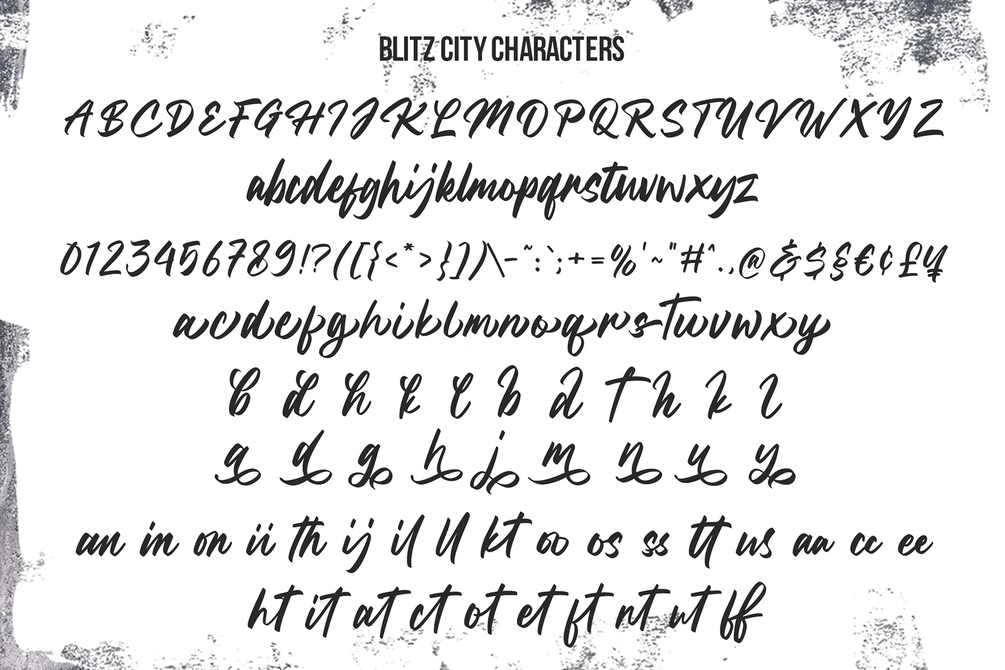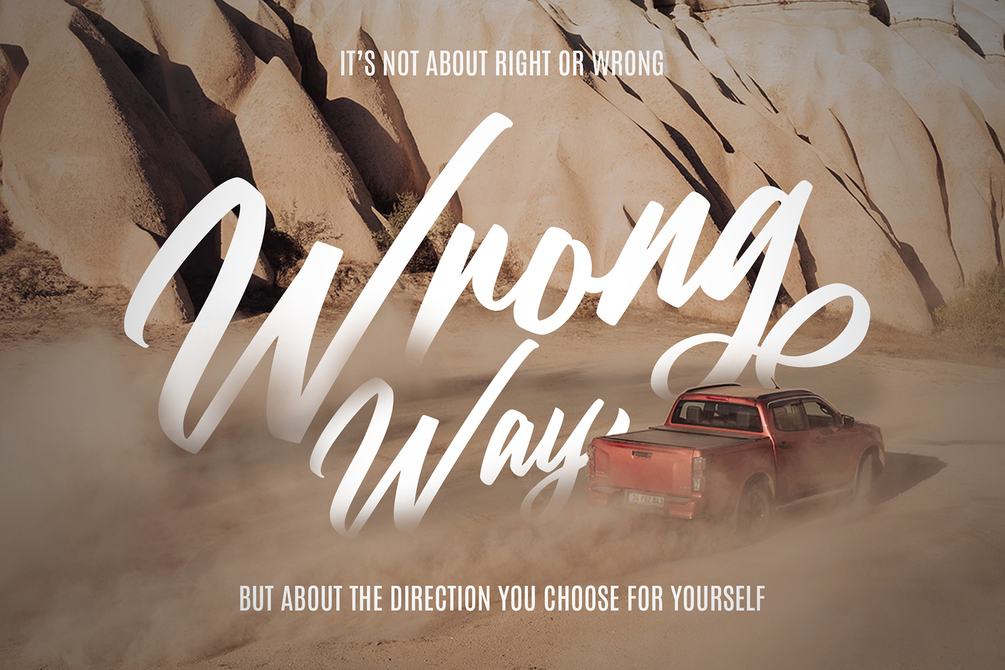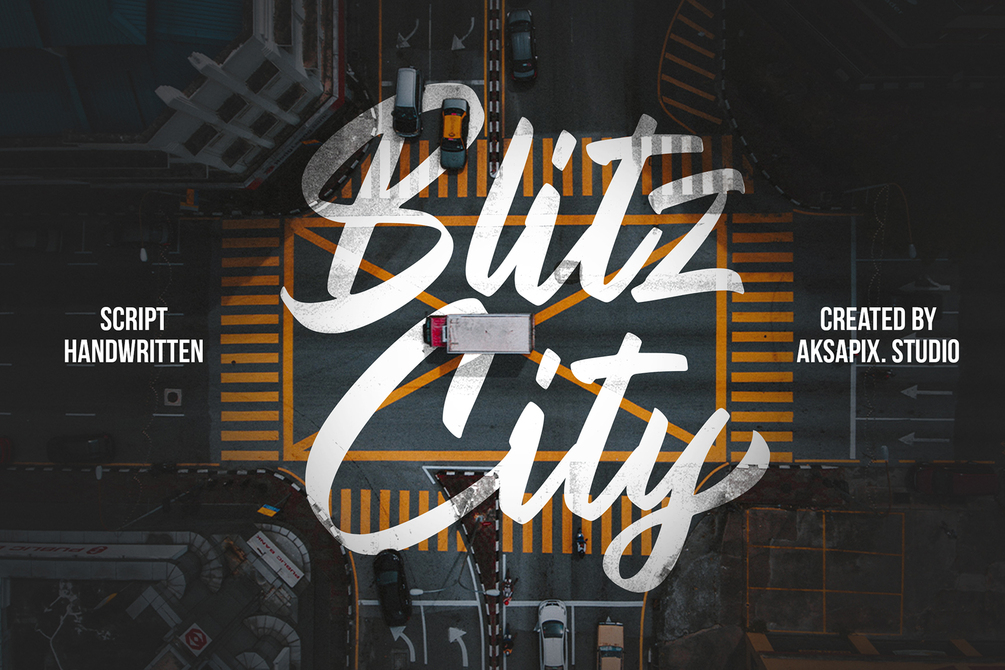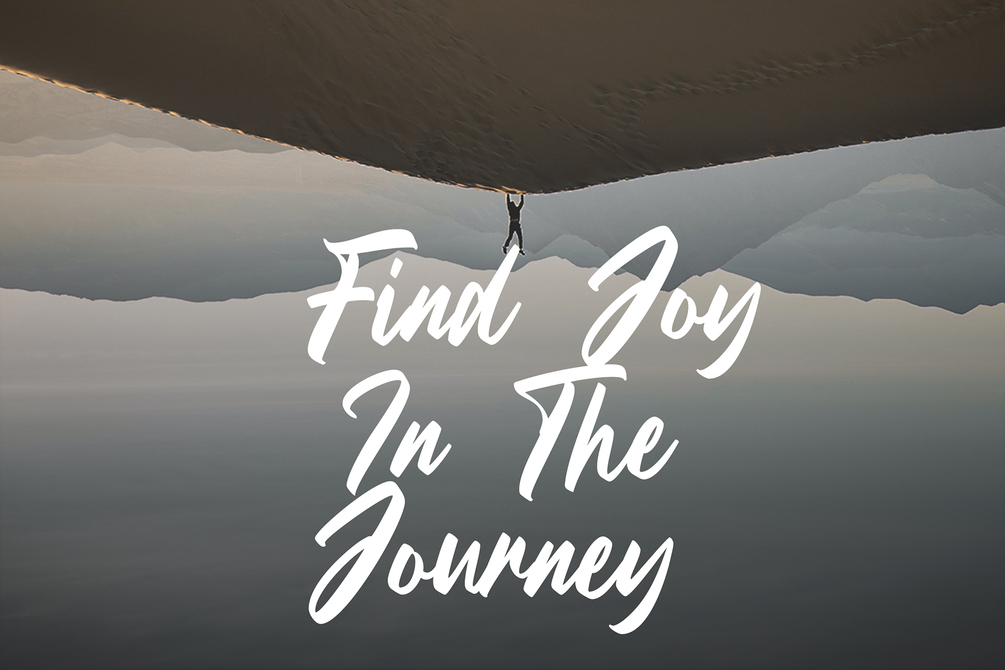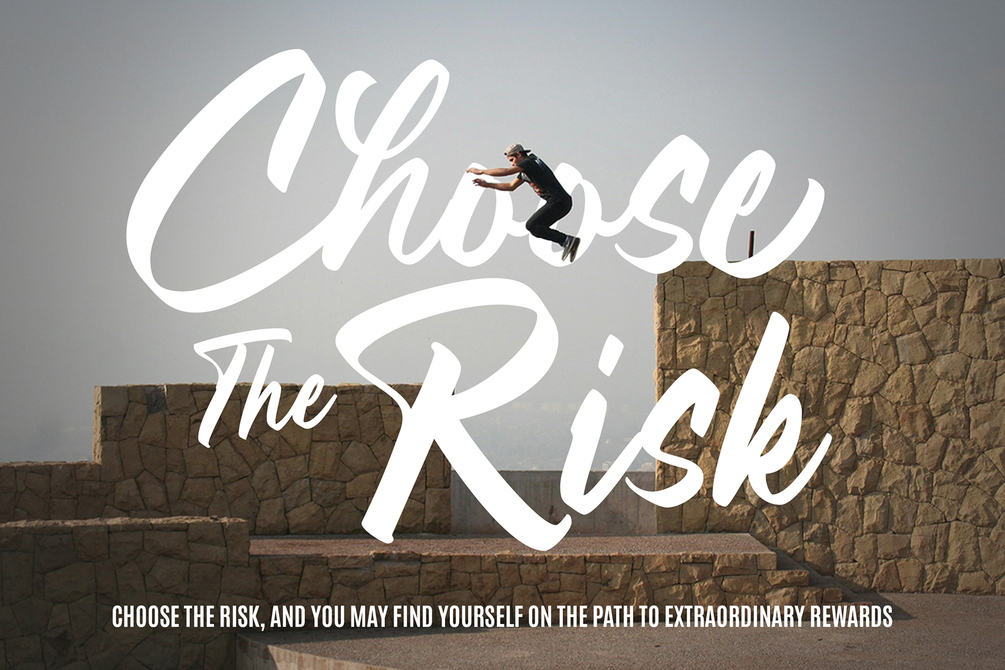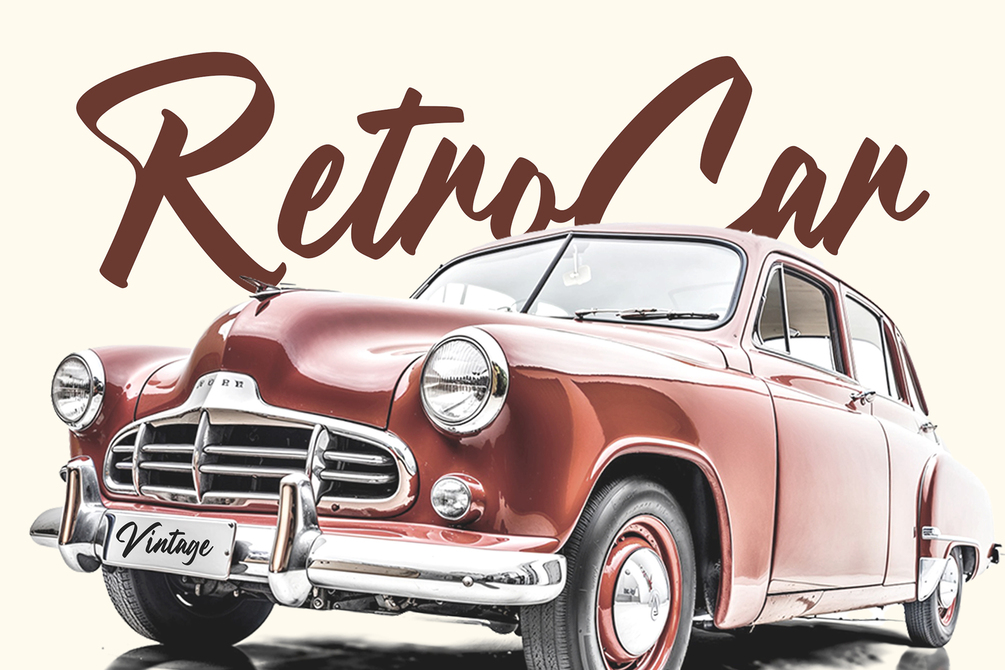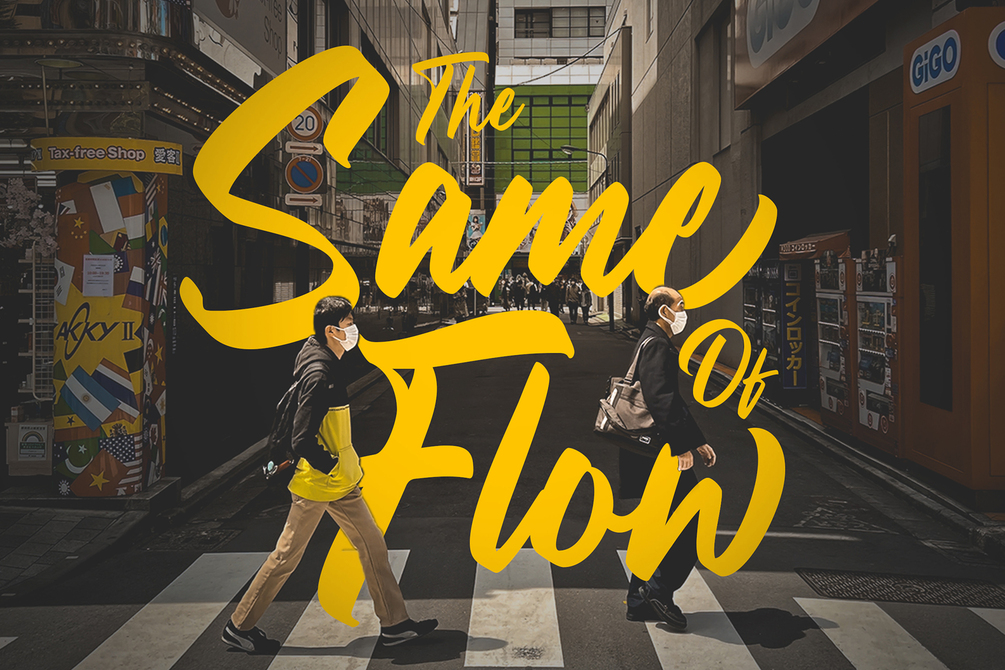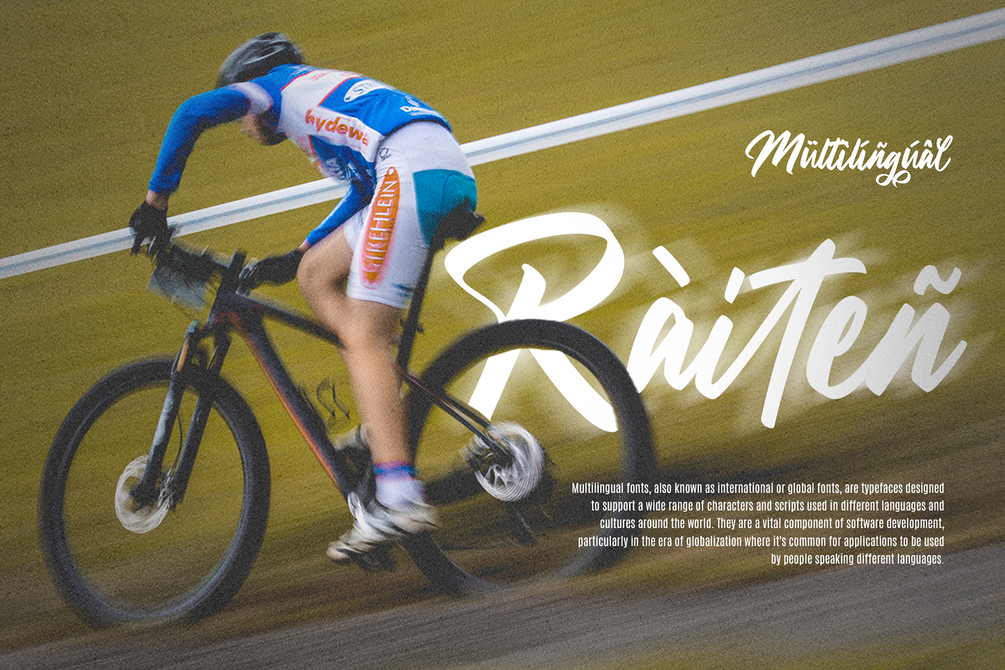
Blitz City - Script Handwritten Font
Blitz City - Script Handwritten Font is a dynamic and contemporary typeface that captures the essence of urban style. Designed with a script and handwritten feel, this font is a perfect fit for a wide range of design projects, including logos, sports posters, street art designs, retro-themed visuals, social media content, and more.
Features:
- Uppercase & Lowercase
- Punctuation & Numbers
- OpenType Features: With OpenType features, including stylistic alternates and standard ligatures, Blitz City provides designers with creative freedom, allowing them to experiment and customize the font for a unique and personalized touch.
- Multilingual Support: this font is equipped with comprehensive multilingual support, ensuring that your designs can cater to a diverse audience. Express your creativity across various languages with confidence.
Incorporate Blitz City into your designs to infuse a touch of urban flair, making your visual creations stand out and resonate with the vibrant energy of the city. Whether it's for street art, sports events, or social media campaigns, Blitz City adds a modern and authentic edge to your creative endeavors.